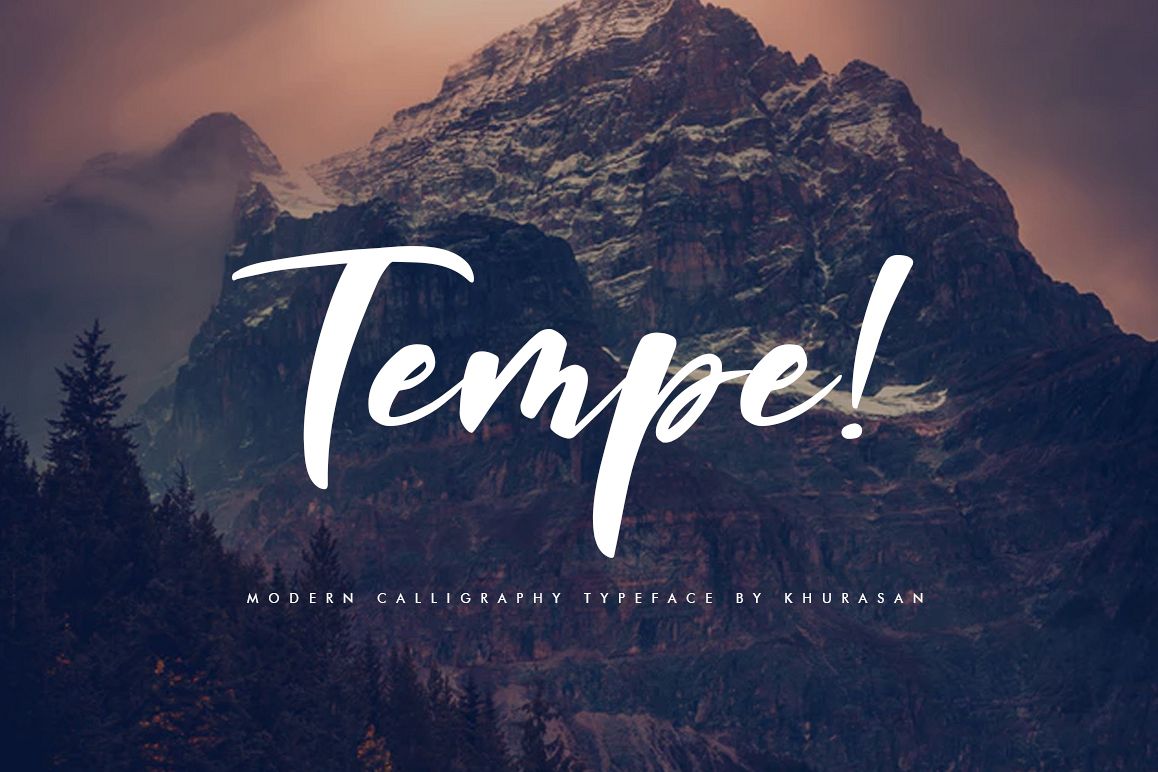
Introducing... Tempe! Script Font is a fun bold script font, fresh & modern style . Tempe! Script Font suitable for logo, branding, greeting card, poster and any design that you create.